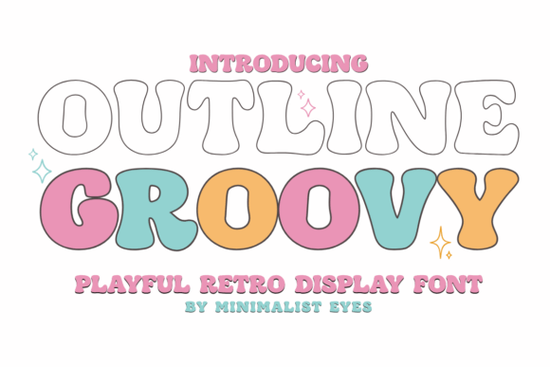
If you are looking to add a playful, retro touch to your crafting projects, the Outline Groovy Font is a fantastic choice. This bubbly, 70s-inspired display typeface brings a warm, nostalgic vibe to everything from vinyl decals to custom apparel. Whether you are a seasoned print-on-demand seller or a weekend crafter using a cutting machine, this typeface gives your work that trendy, vintage feel without looking cluttered.
How does it look on Cricut and Silhouette projects?
When working with vinyl, the thickness of the letters matters. Because this style features a bold, hollowed-out look, it cuts cleanly on machines like Cricut and Silhouette. You spend less time weeding tiny interior spaces and more time applying the finished decal. It is especially popular for summer-themed crafts, groovy party decor, and personalized stickers. The bubbly shape holds up well on curved surfaces like tumblers and mugs, ensuring the letters remain legible even when scaled down.
What other retro styles pair well with it?
While a bubbly outline is great for headlines, you usually need a complementary style for body text or secondary details. If you are designing a vintage western theme, you might pair it with a rustic cowboy saloon typeface. For a more energetic, movement-focused layout, a lively dance script works beautifully alongside it. If your project requires elegant initials, mixing it with a collection of elegant monograms adds a nice custom touch. You can also ground the playful vibe with something solid and structured, like bold wildwest block letters, to create a balanced, eye-catching poster.
Is it suitable for commercial print-on-demand products?
Yes, it is highly versatile for commercial use. Print-on-demand sellers often need typefaces that catch the eye on a crowded marketplace. The nostalgic charm of this 70s bubble style appeals to buyers looking for vintage aesthetics. It works exceptionally well on:
- T-shirt graphics for retro clothing lines.
- Social media templates for small business promotions.
- Wall art and canvas prints featuring motivational or fun quotes.
Because it is a display typeface, it is best used for short phrases, single words, or names rather than long paragraphs.
How do you get the best results when designing?
To make the most of this typeface, keep your layouts simple. Let the bold, hollow letters be the star of the design.
- Use contrasting colors: Since the letters are outlined, filling the inside with a bright color or leaving it transparent over a patterned background makes the text pop.
- Add subtle effects: A slight drop shadow or a solid offset background can give the letters a 3D effect, enhancing the retro feel.
- Watch your spacing: Bubbly letters can sometimes feel cramped. Adjusting the tracking (letter spacing) slightly wider than usual improves readability.
- Limit your palette: Stick to two or three colors to maintain that authentic vintage look.
- Preview at size: Always zoom out to see how the bold outline reads from a distance.